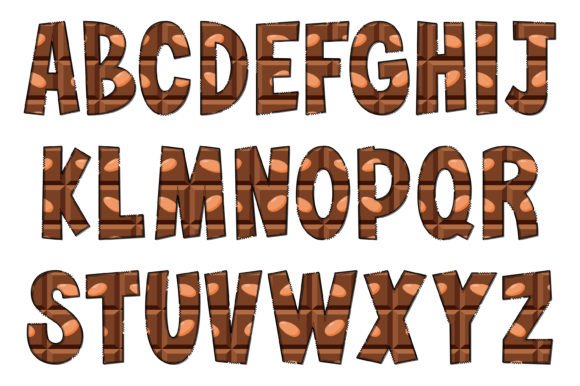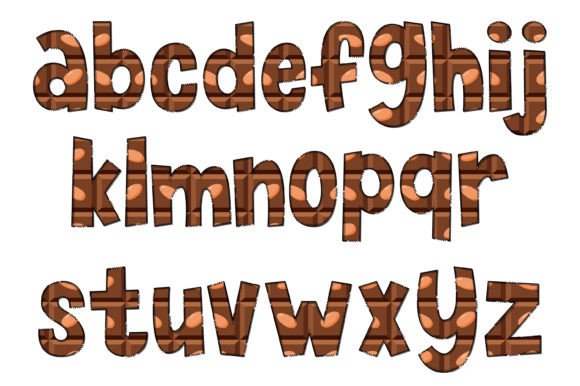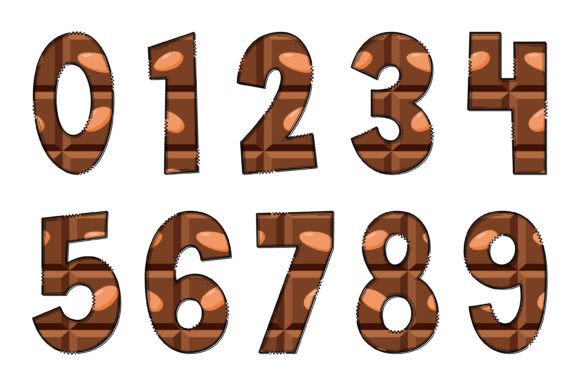
Introduction to Chocolate Bark Font
This color font with a dessert theme is a delightful and captivating choice for anyone looking to bring in their designs the joy and deliciousness of desserts.
Its vibrant colors and playful details are sure to create a truly mouthwatering experience for viewers, making it a delightful addition to any project It is s perfect for a variety of applications, including branding materials, party invitations, menu designs, and social media graphics.
Chocolate Bark Font offers exceptional quality and versatility, making it a valuable addition to your design toolkit. Whether you’re creating for personal projects or commercial use, Chocolate Bark Font delivers professional results.